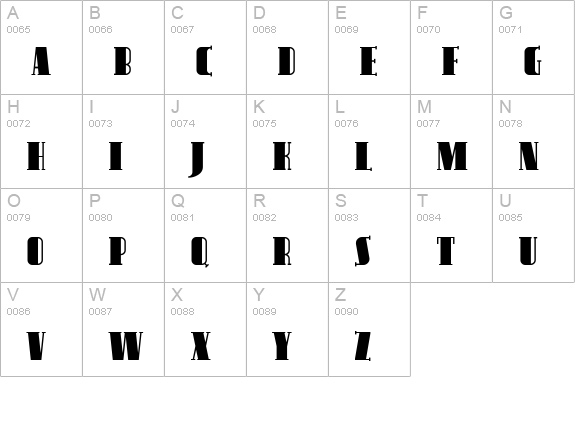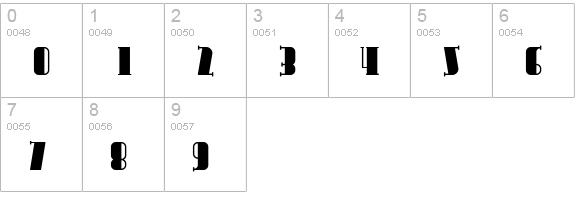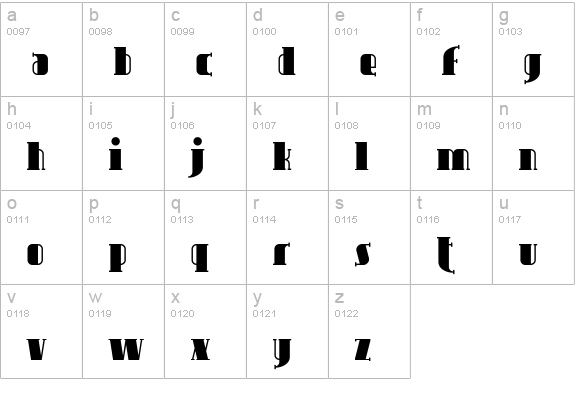
Avondale font is a modern and elegant typeface that beautifully combines sophistication with versatility. With its clean lines and stylish curves, Avondale is perfect for a wide range of design projects, from branding to editorial design. This versatile font is suitable for various purposes, such as logos, headlines, quotes, and more. One of the best things about Avondale font is that it is completely free to download. You can easily access this stunning typeface at FontsMarket.com and enhance your projects with its timeless elegance and charm. Whether you're a designer looking to add a touch of class to your work or a business owner aiming to elevate your brand identity, Avondale font is sure to impress with its refined aesthetic and modern appeal. Download Avondale font today and unleash your creativity with this exceptional typeface.